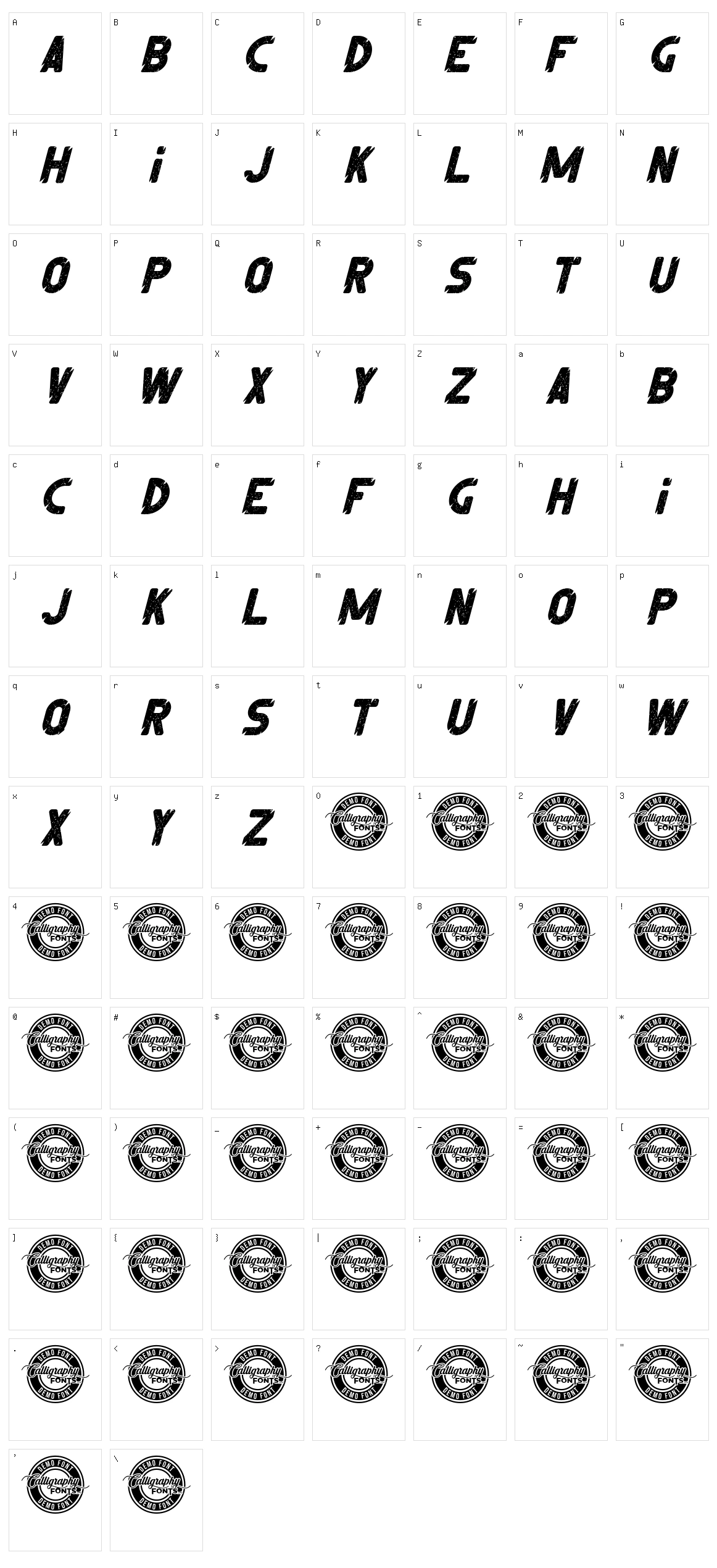
The free font Mango Bite is carefully designed by Calligraphy Fonts, showcasing a thoughtful balance of creativity and usability and falls under the Eroded font style. When you download the ZIP file, it contains only 445.42 KB of font files, making it lightweight and quick to download. Please review the license details below to understand permitted usage and distribution rights. If license information is not available, we recommend using this font for personal projects only or contacting the author directly for commercial usage permissions.